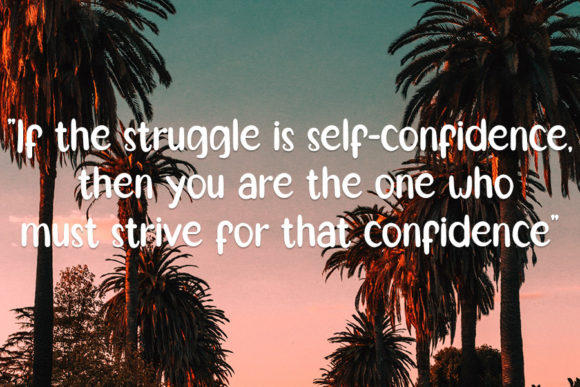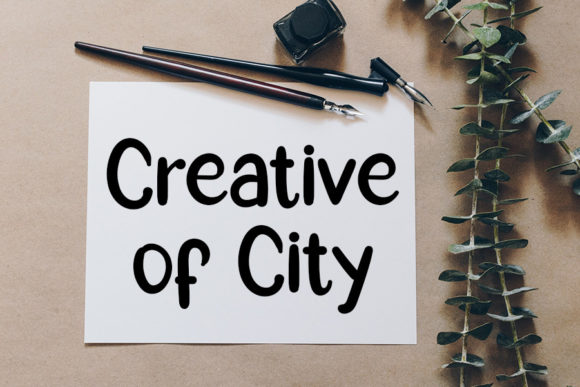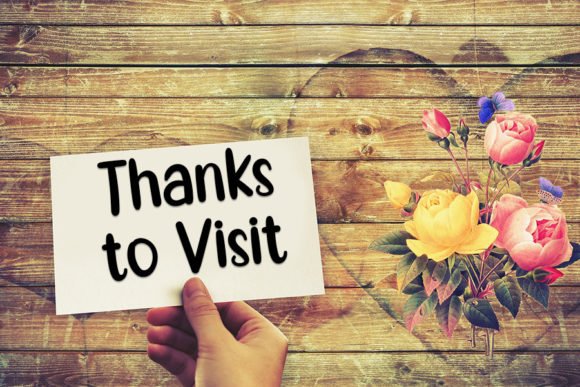
Discover the Sunshine in Your Designs
As a designer, have you ever stared at a blank canvas, searching for the perfect font to bring your creative vision to life? You know that feeling when the right typography can make all the difference in elevating your design from ordinary to extraordinary?
Enter California Font, a simple yet stylish display font that’s perfect for designers looking to add a touch of California cool to their projects. This versatile font is designed to be clean, round, and all-around fabulous, making it a great choice for a wide range of design applications. With its endless variations, you’ll have a blast experimenting with different styles and finding the perfect fit for your unique design.
Whether you’re working on a branding project, a website, or a social media campaign, California Font is sure to bring a smile to your face and a pop of fun to your designs.
- Unique Characteristics: California Font is known for its elegant and sophisticated feel, with subtle flair at the ends of strokes.
California Font Review
As a designer, I was initially drawn to California Font’s sleek and modern aesthetic, perfect for capturing the laid-back vibes of the Golden State. ✨ The font’s clean lines and rounded edges give it a friendly, approachable feel that’s perfect for a variety of projects.
Here are some of the font’s strengths:
- ✨ Versatility: California Font can be used for a range of projects, from logos and branding to digital products and print materials.
- ✨ Legibility: The font is highly legible, making it easy to read even at smaller sizes.
- ✨ Customization: California Font offers a range of weights and styles, allowing designers to tailor the font to their specific needs.
- ⚠️ Limited expressiveness: While California Font is perfect for casual, relaxed designs, it may not be the best choice for projects that require a more dramatic or attention-grabbing look.
- ⚠️ Limited support for certain languages: California Font may not be compatible with all languages, which could limit its use in international projects.
Overall, California Font is a solid choice for designers looking for a clean, modern font that’s perfect for a variety of projects. While it may not be the best fit for every project, it’s definitely worth considering for those that require a relaxed, approachable vibe.
The California Font is a great choice for:
- Casual, laid-back designs.
- Travel and adventure marketing.
Remember to pair the California Font with a clean and simple design to get the most out of it.